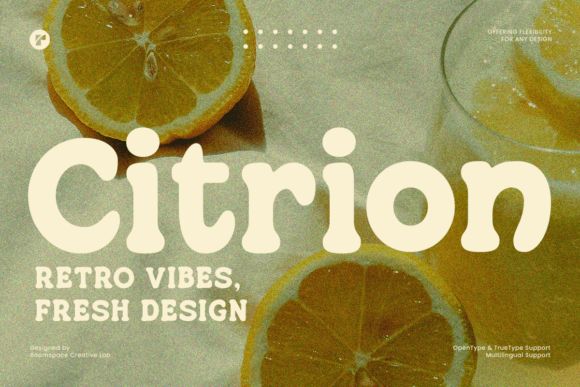
Citrion - Stylish Modern Serif Font for Social Media & Branding
Citrion is a display‑ready font with decorative style and character, designed to add flair and personality to your designs. Its unique letterforms make it suitable for creative projects such as logos, packaging, posters, labels, invitations, and more — wherever you want typography that stands out. This font brings a bold, expressive aesthetic rather than a neutral, standard typographic voice.
Whether you are building branding for a boutique product, designing packaging, or creating printable art, Citrion gives you a distinct typographic voice that helps your design feel custom, artistic and memorable. Use it when you want readability paired with expressive design, especially in display or headline use cases.
- Full Latin character set: uppercase, lowercase, numbers, punctuation, basic glyphs
- Display‑ready font optimized for headings, logos, labels, and decorative text
- Decorative, expressive style — ideal for bold branding and creative designs
- Gives handmade, boutique or artisan vibe — great for packaging and small‑brand identity
A: No — Citrion is designed as a display font best used for headings, titles, logos, packaging, or decorative text. It is not ideal for long body copy or extended paragraphs. -
| Feature | Citrion | Generic Display Serif/Decorative Font A | Generic Clean Sans‑Serif Display Font B |
| Font Style | Decorative / display font — expressive, stylized | Classic serif or decorative display — polished but traditional | Clean sans‑serif display — minimal, modern, neutral |
| Best Use | Logos, packaging, labels, posters, signage, decorative text | Branding with classic or vintage vibe, editorial headings, print materials | Modern branding, UI, web headings, minimal‑style posters |
| Readability at small size / body text | Lower — best at display/large sizes | Moderate — okay for short copy if sized well | High — suited for body text or UI if sized appropriately |
| Visual Vibe | Artistic, boutique, decorative, creative | Traditional, elegant, possibly vintage/classic | Modern, clean, minimal, neutral |